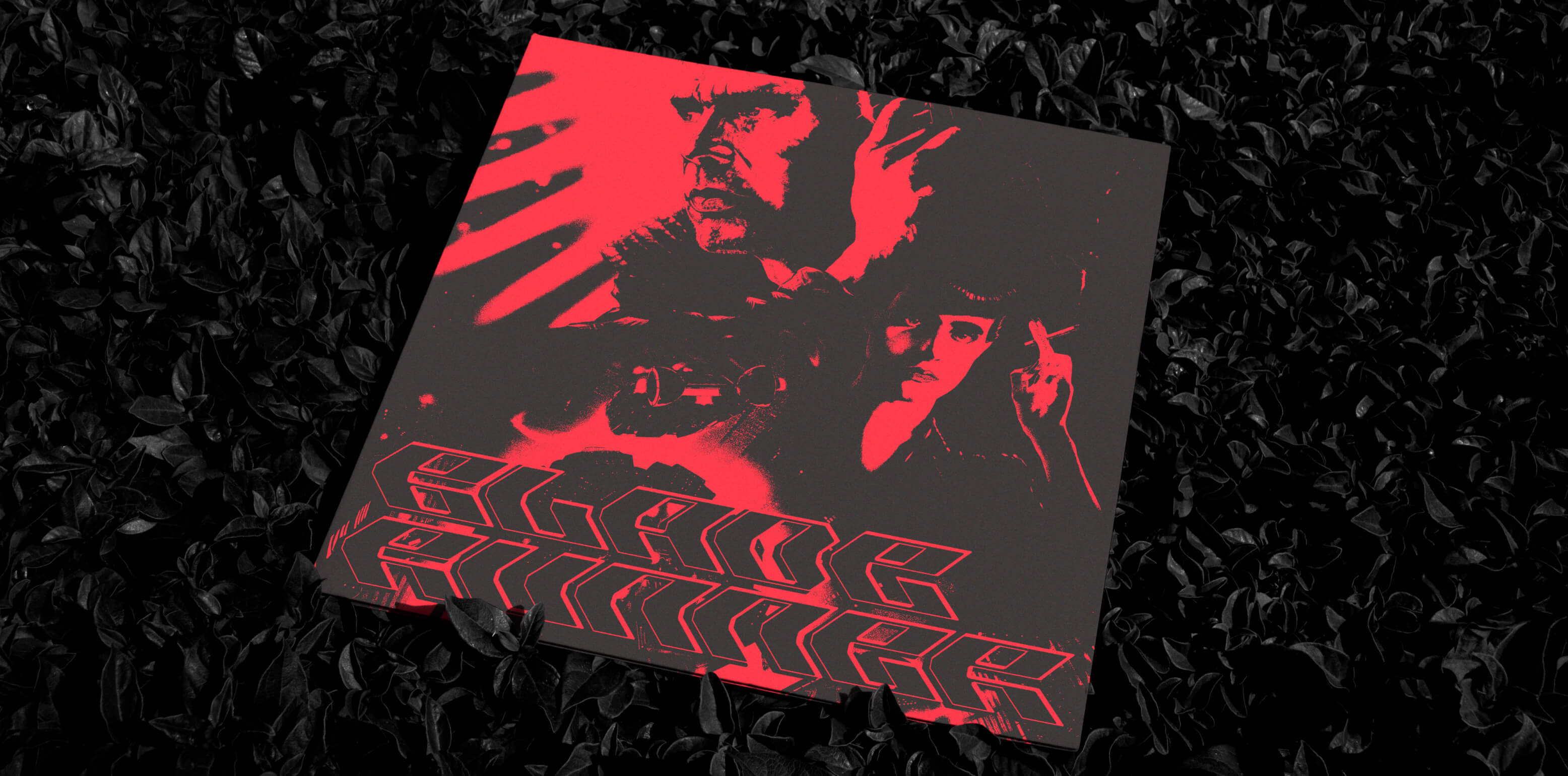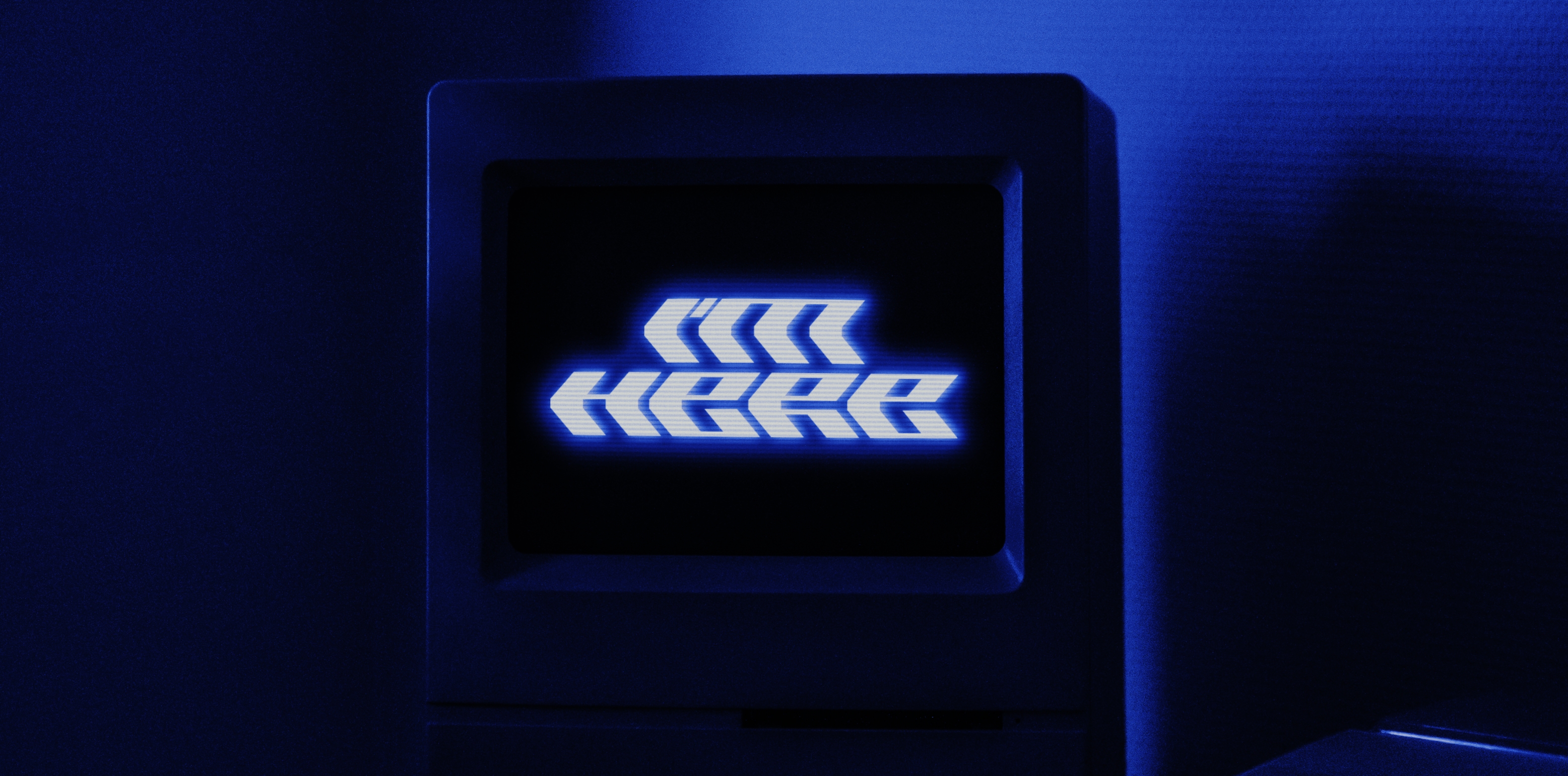
Xer0 is a dynamic display font that will stand out in your projects like never before. This is just a single-weight font that has a wedge-like shape that allows the letters to be recessed into each other to create a sense of geometry and movement.
Xer0
A
single case
DescriptionXER0 is a dynamic display font with a strong look and feel. A single-case font with one weight, its letterforms have a wedge-like shape that allows the letters to be recessed into each other to create a sense of geometric stacking and movement. Futuristic in nature, legibility is pushed to the limit.